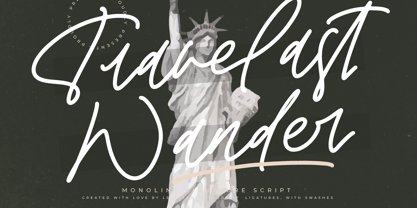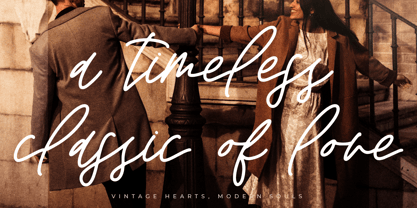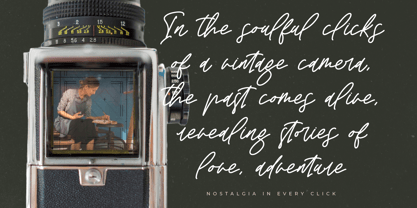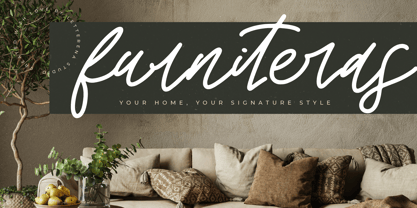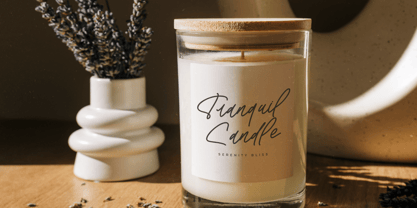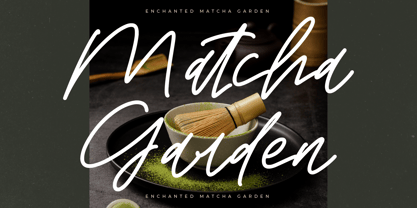
Travelast Wander
The Travelast Wander Font Family was designed by Heru Utama Putra and published by Letterena Studios. Travelast Wander contains 2 styles and family package options. More about this family
Travelast Wander – Monoline Signature Script , from Letterena, is a Luxury Script font, suitable for any projects such as: logos, branding projects, homeware designs, product packaging, mugs, quotes, posters, shopping bags, t-shirts, book covers, name card, invitation cards, greeting cards, label, photography, watermark, special events, and all your other luxury and beautiful projects that need a Luxury Script taste.